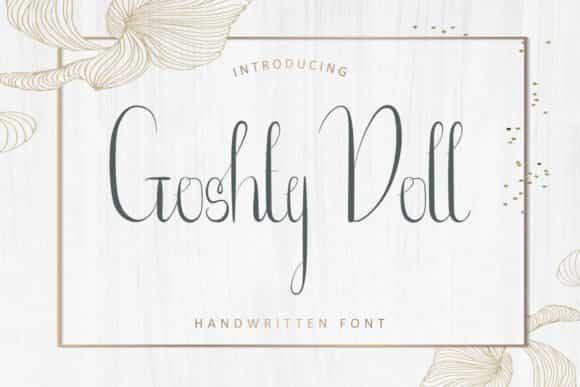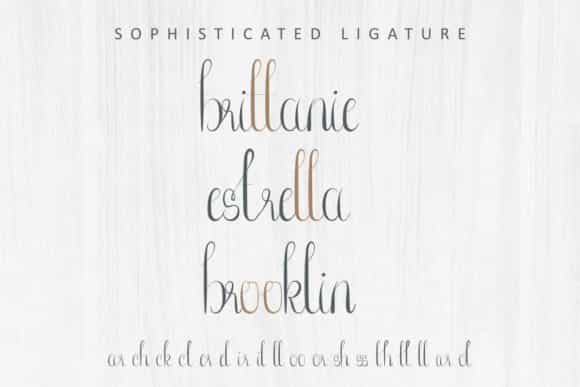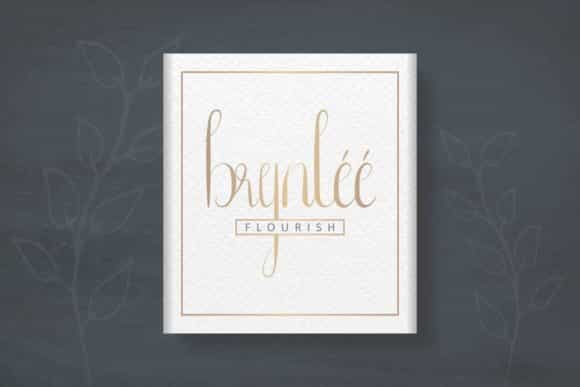
Discover Goshty Doll Calligraphy Font, part of the Calligraphy Handwritten collection—a versatile and unique font perfect for adding a personal touch to your projects. Download it for free and enjoy crafting designs with style, from invitations to social media posts. This font is available exclusively for personal use, giving you the freedom to create without limits. Unlock your creativity with Goshty Doll Calligraphy Font today!
Goshty Doll is a font that has been written by hand. It has a genuine contemporary calligraphy effect which is great for branding and digital designs. This font can be used in logos, social media, websites, blogs, instagram’s and business cards as well as for branding.